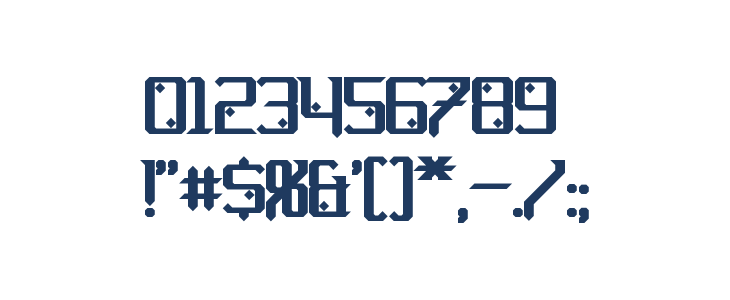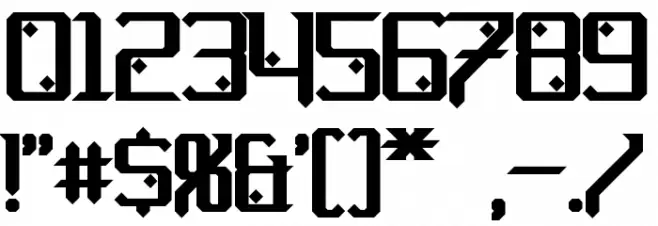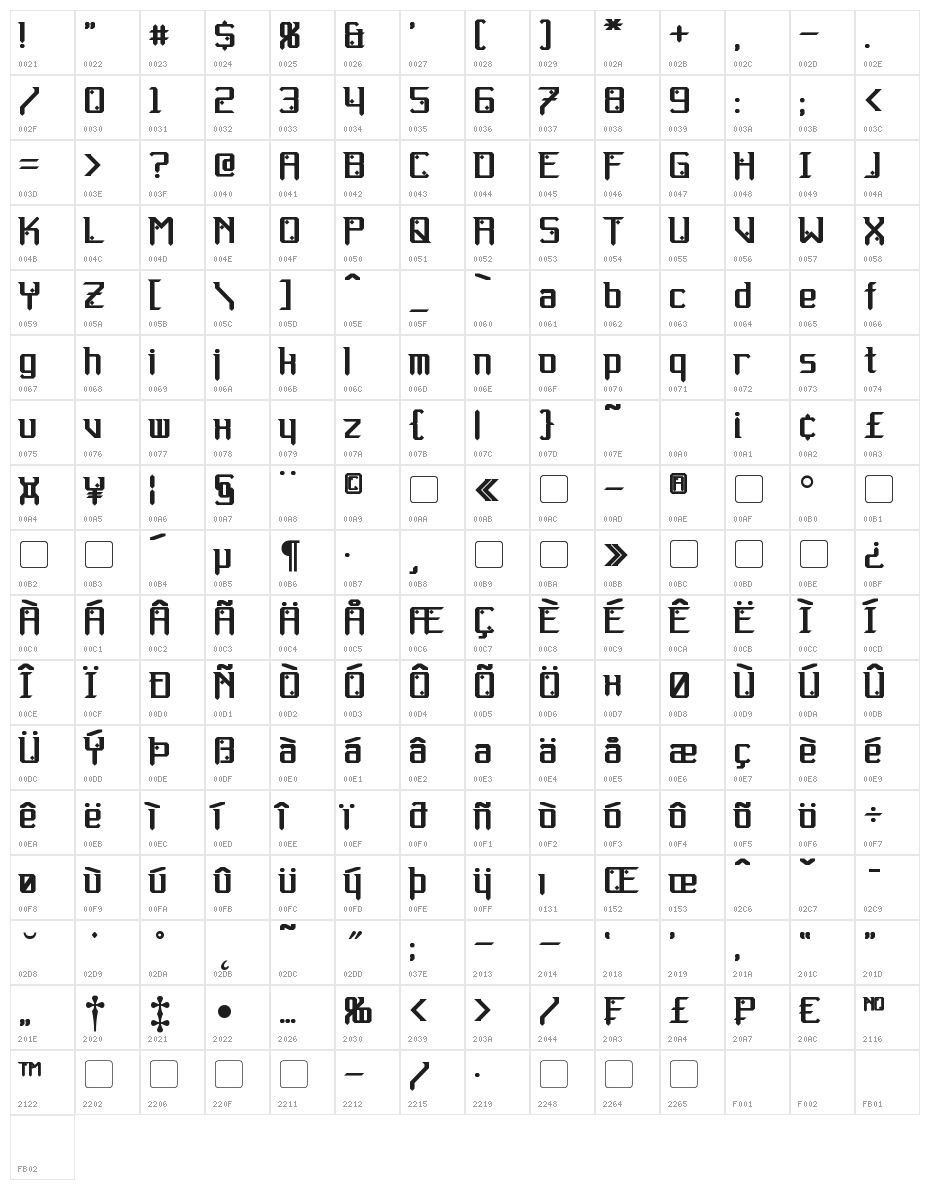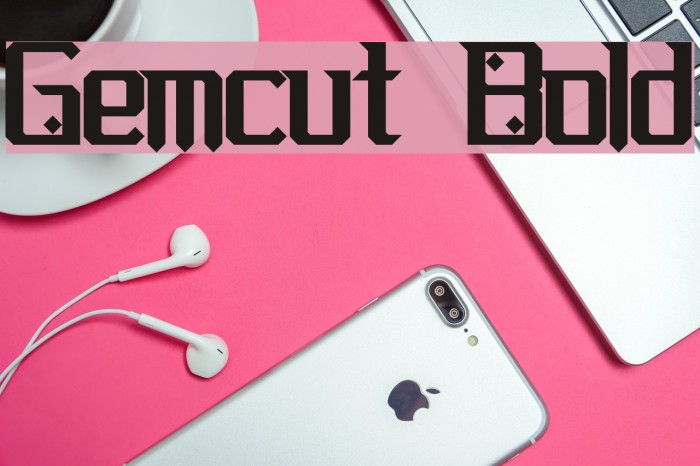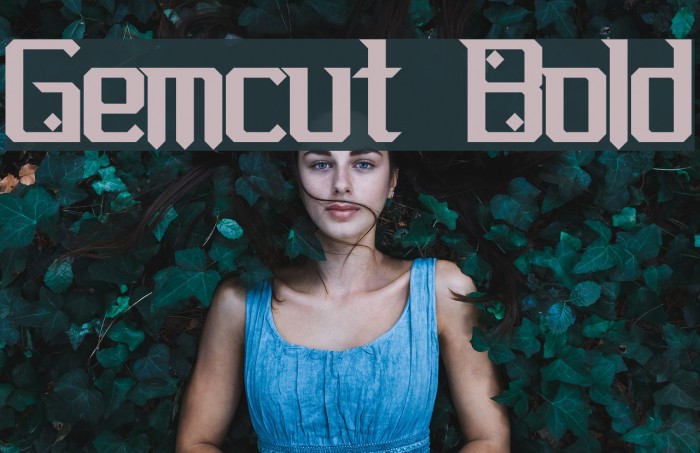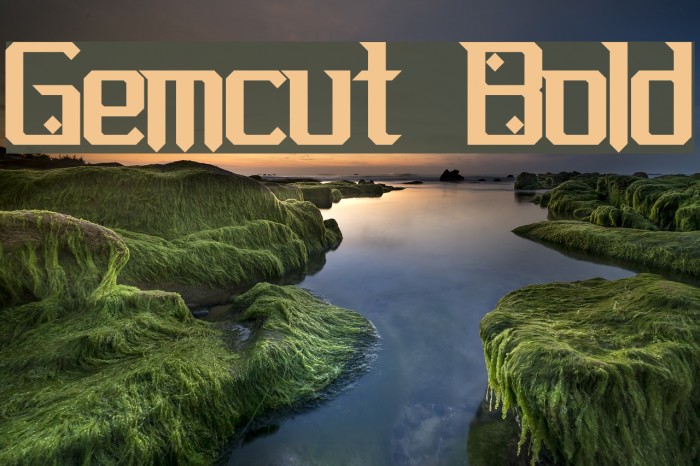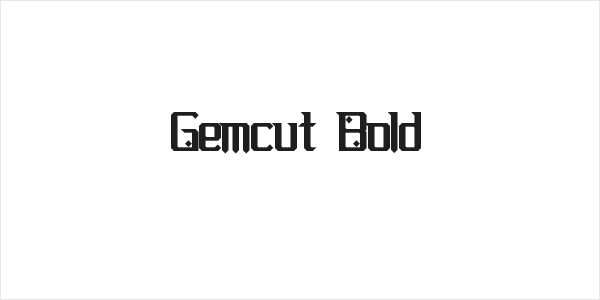
Gemcut Bold Font
Gemcut Bold Description
This font features a bold and geometric design, characterized by sharp angles and a distinct, faceted appearance reminiscent of cut gemstones. The uppercase and lowercase letters maintain a consistent style, with angular cuts and a blocky structure that gives a sense of solidity and strength. The numerals and special characters follow the same geometric theme, ensuring uniformity across all glyphs. This font's unique style makes it stand out, offering a modern and edgy look that is both eye-catching and memorable.